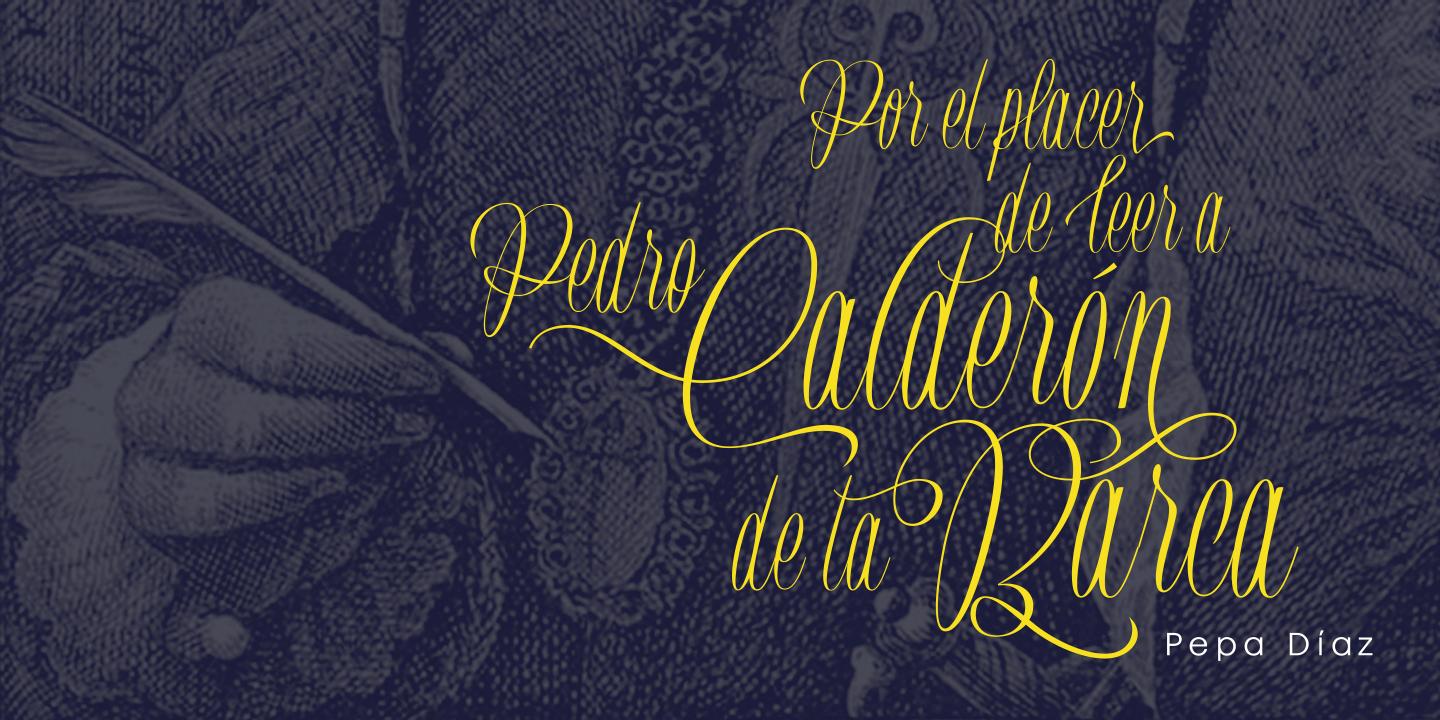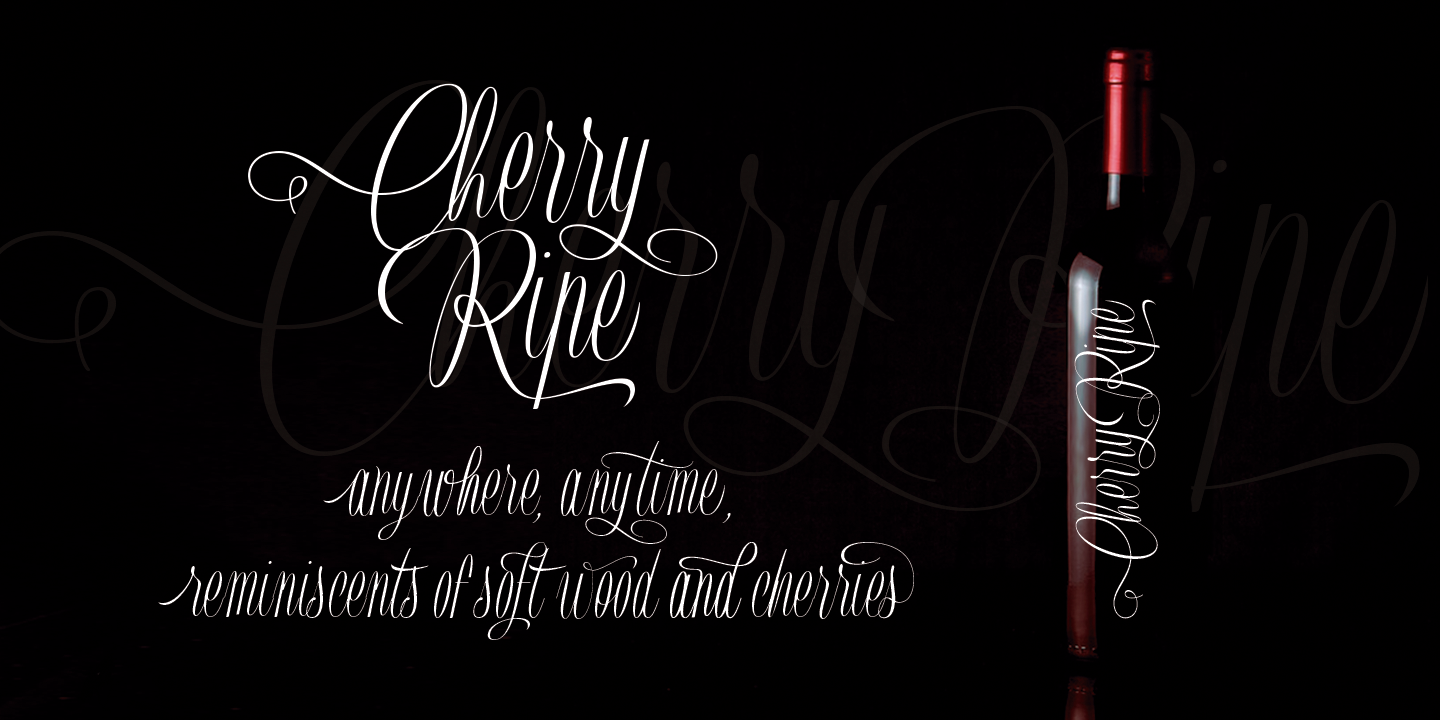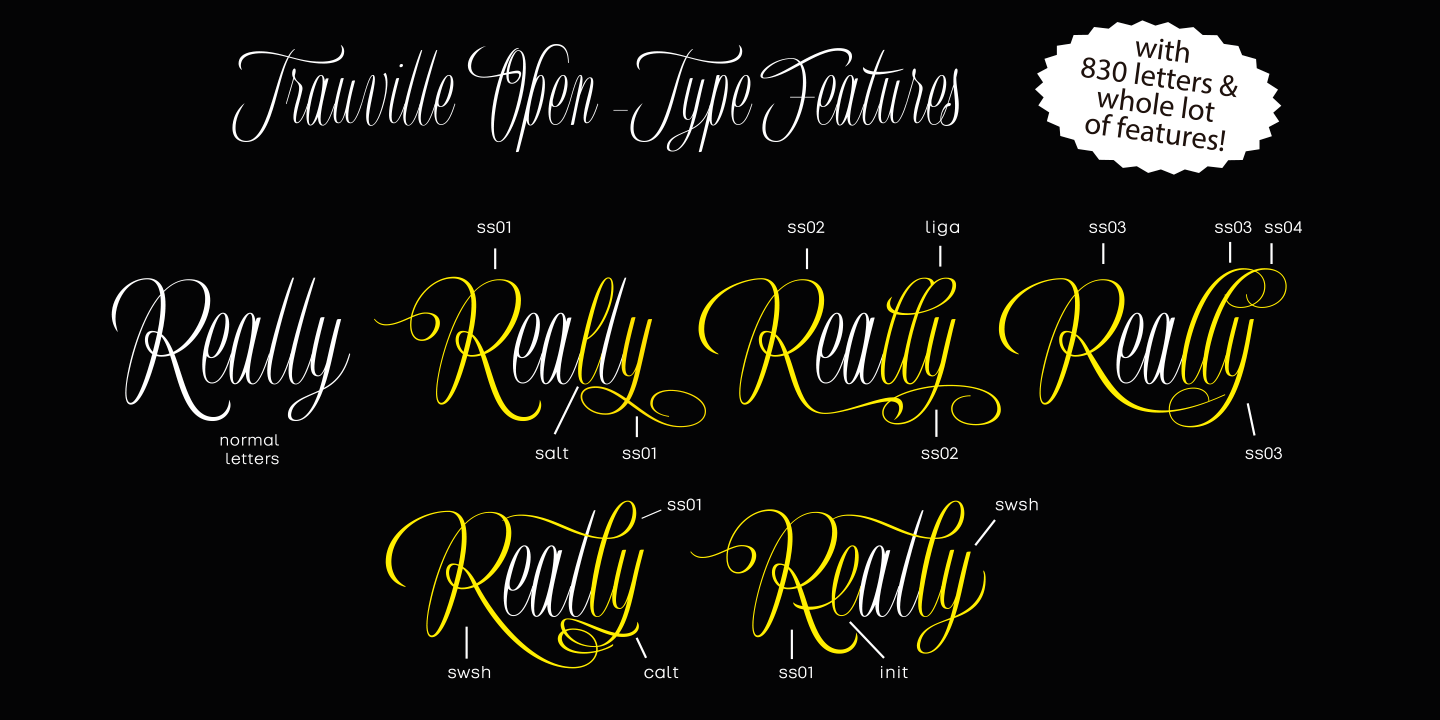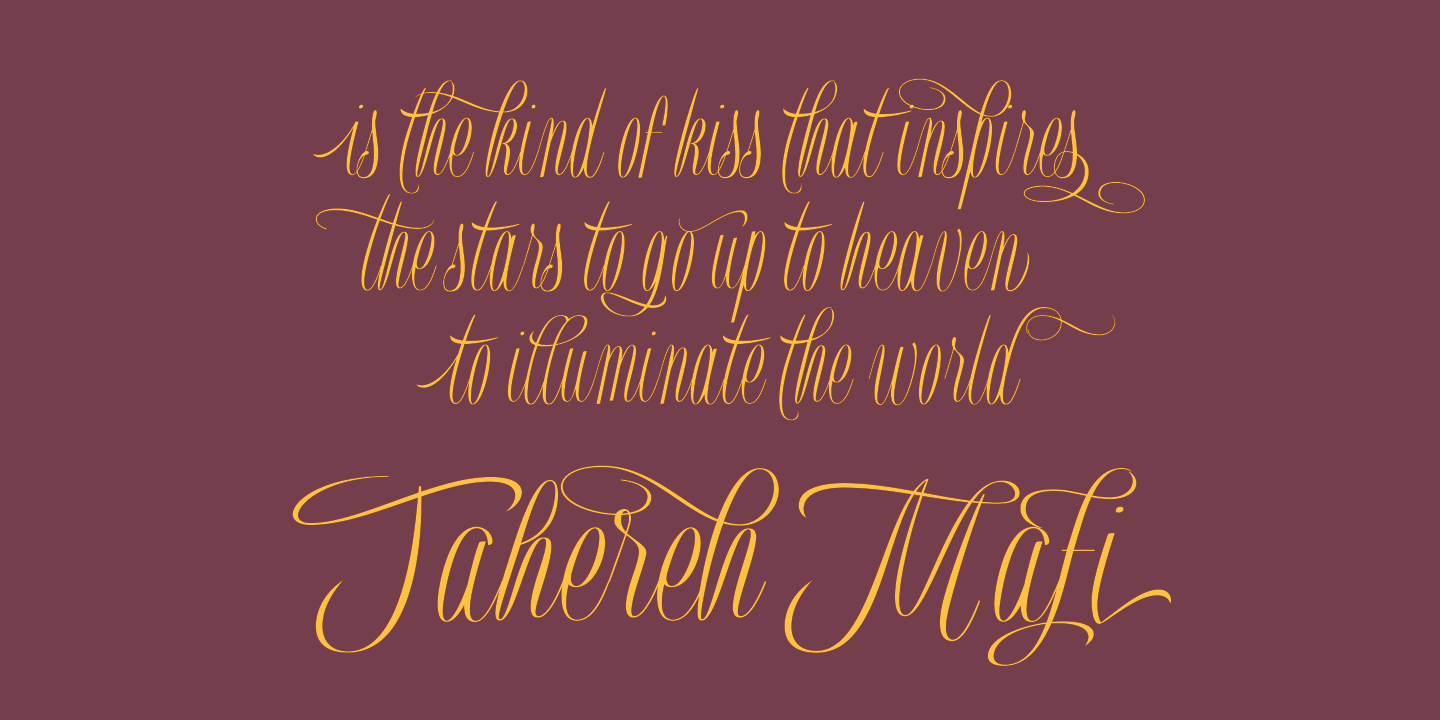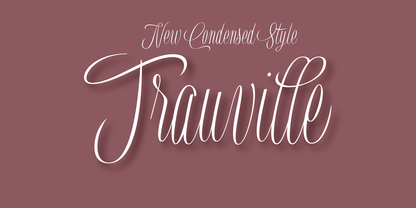
Trauville
A Lively & Modern Handwritten Script
Trauville is a lively, modern script font inspired by the charm of Beauville Script and the natural flow of handwritten pen lettering. Carefully crafted to feel authentic and expressive, Trauville combines elegance with a joyful, informal spirit, enhanced by a subtle vintage touch.
Organic Flow & Bouncy Rhythm
Its bouncy baseline, rounded letterforms, and slightly irregular stems recreate the warmth of real handwriting, while smooth letter connections ensure a fluid and natural rhythm. An extensive set of ligatures introduces rich variation between characters, allowing text to feel organic, spontaneous, and visually engaging—never repetitive.
830 Glyphs & Advanced OpenType Features
With an impressive collection of 830 glyphs, Trauville offers exceptional creative flexibility. The font includes contextual and stylistic alternates, numerous ligatures, elegant swashes, and distinctive initial forms, giving designers full control over tone and expression. Central European language support is included, making Trauville adaptable to a wide range of international projects.
Perfect for Weddings & Lifestyle Branding
Perfectly suited for greeting cards, invitations, weddings, posters, magazines, fashion and lifestyle design, branding, logos, and packaging, Trauville adds personality and warmth to any visual identity. Friendly, fresh, and a pleasure to work with, this font brings handcrafted elegance and playful energy to both print and digital designs.